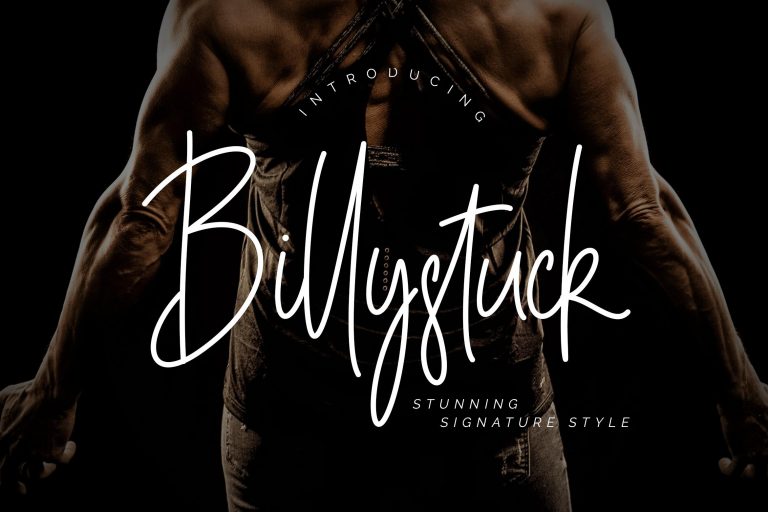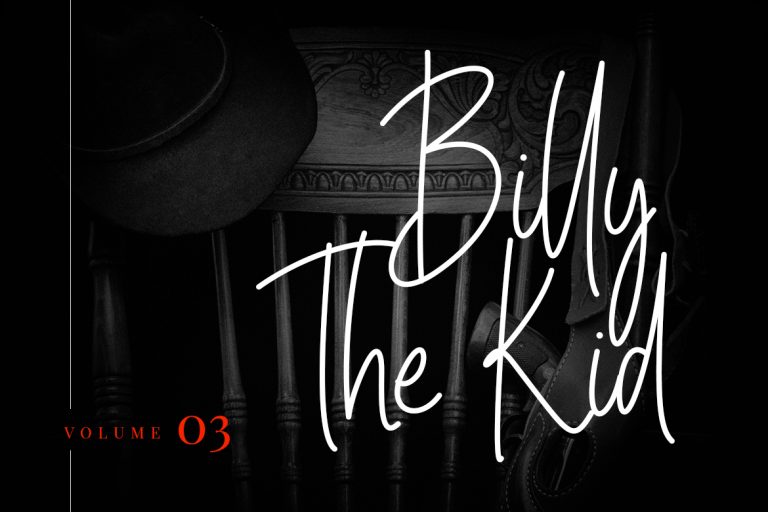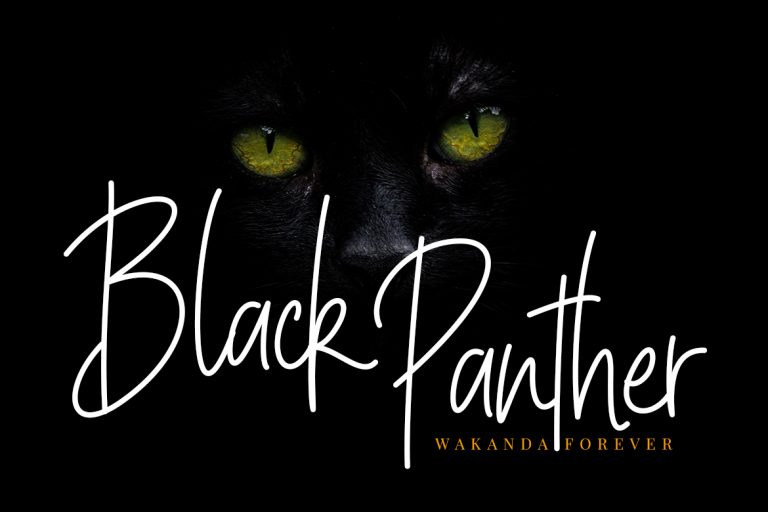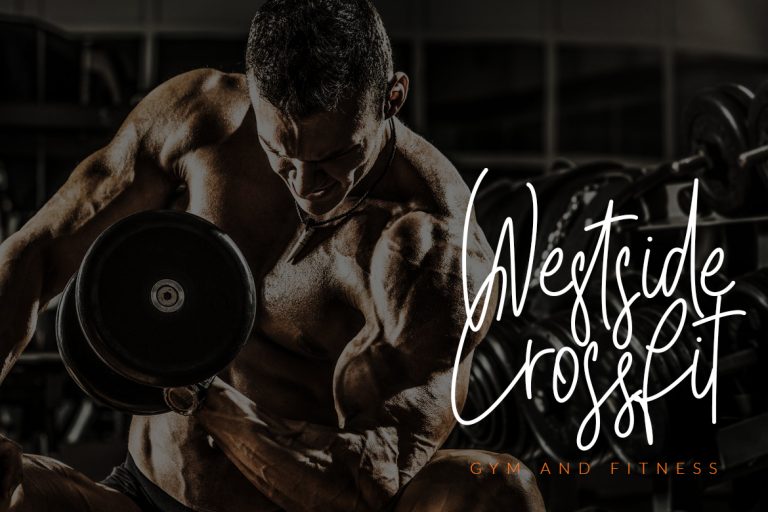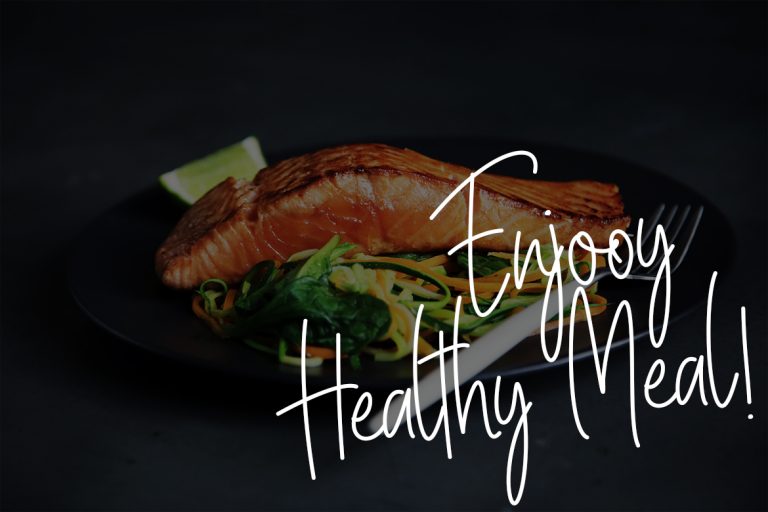
Billystuck Signature
Billystuck is stylish and stunning signature typeface with personal touch movement which make your latest project looks amazing.
Billystuck is perfect for branding projects, logo, wedding designs, social media posts, advertisements, product packaging, product designs, label, photography, watermark, invitation, stationery and any projects that need handwriting taste.